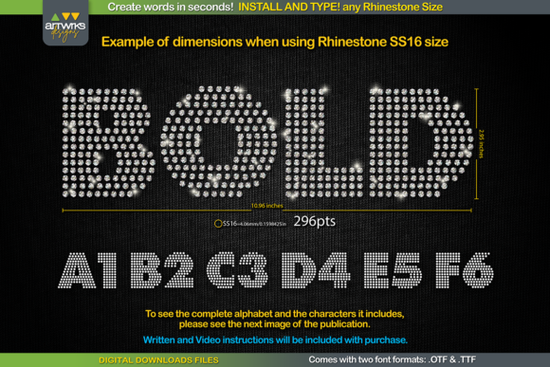
If you’ve ever spent hours placing individual rhinestones or struggling to align letters for heat transfer vinyl, the RS04 Modern DIY RHINESTONE TTF Template Font might be exactly what your craft workflow needs. This downloadable font lets you type any word and instantly get a design pre-filled with perfectly spaced rhinestone placeholders no manual placement required. Whether you're making custom T-shirts, tote bags, or personalized gifts, this tool saves serious time while keeping your designs crisp and professional.
How do I match the font size to my rhinestones?
The key to clean results lies in using the correct point size for your chosen rhinestone. The RS04 font includes precise sizing guidance:
- SS6 stones: 189 pt
- SS10 stones: 241 pt
- SS16 stones: 295 pt
- SS20 stones: 388 pt
While Cricut Design Space has recently changed how it handles font scaling (sometimes overriding recommended sizes), you can still achieve accurate results by manually setting the font size after typing your word. A quick zoom-in check before cutting ensures your stones will fit snugly without gaps or overlaps.
Can I use this for more than just rhinestones?
Absolutely. Although designed with rhinestones in mind, the RS04 template also works beautifully for heat transfer vinyl (HTV) projects. Each letter is “trapped” meaning the outlines are slightly adjusted to prevent color bleed during layering which makes it ideal for multi-color vinyl designs. This versatility means one font can serve multiple product lines, from sparkly cheer gear to sleek monogrammed apparel.
Who is this font best for?
This template shines for small business owners running print-on-demand shops, Etsy sellers creating custom apparel, or hobbyists who want consistent, repeatable results without advanced vector skills. You don’t need to be a graphic designer to use it just basic familiarity with your cutting software. Since it’s a true type font, it behaves like any standard text: you can center it, curve it (within limits), or combine it with shapes and icons.
One note: the font only includes the characters shown in the product preview images (typically A–Z, 0–9, and basic punctuation). If your project requires special symbols or accented letters, double-check the character map before purchasing.
With the RS04 Modern DIY RHINESTONE TTF Template Font, what used to take an afternoon can now be done in minutes. It’s not magic it’s smart design made accessible. If you’re ready to streamline your bling workflow, this font is a practical, reliable choice that delivers exactly what it promises: fast, clean, customizable text for rhinestones and beyond.